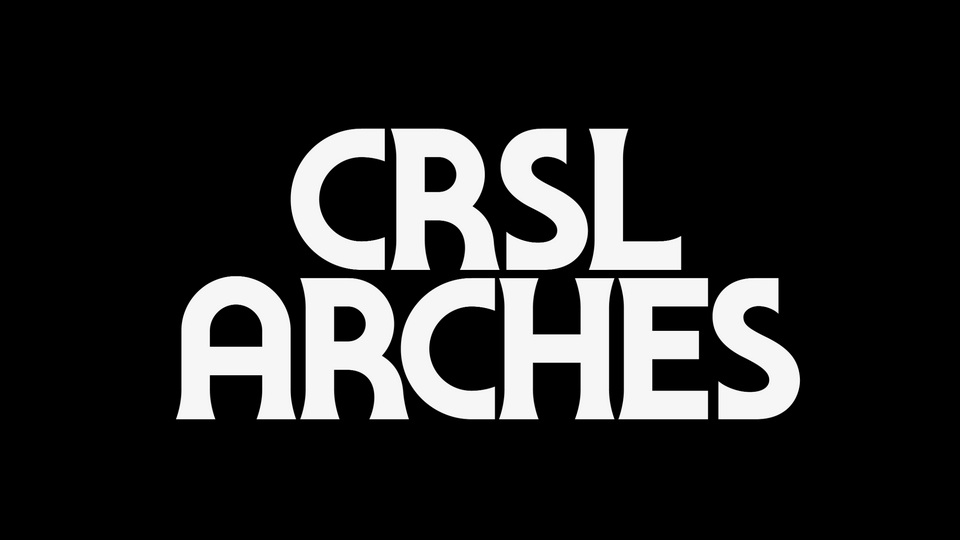
Download CRSL Arches font, a display typeface inspired by Italian architecture. CRSL Arches features uniquely designed serifs, combining gothic simplicity with traditional roman elegance.
Designer: CRSL Carosello Lab